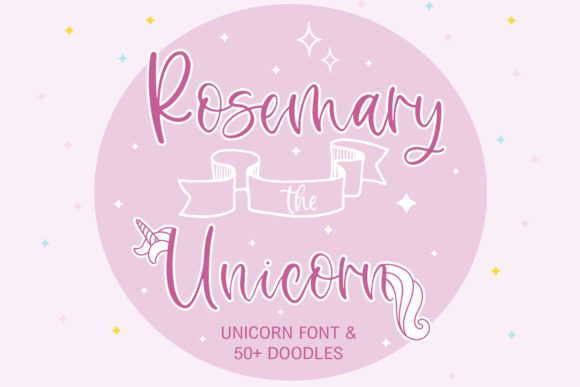
Unleash your creativity and embrace the charm of Rosemary the Unicorn, a captivating script font that exudes a touch of whimsy and elegance. Immerse yourself in the world of calligraphy with this meticulously crafted masterpiece, designed by the talented freelingdesignhouse.
Rosemary the Unicorn is not just a font; it's an experience. Its delicate strokes and playful curves dance across the page, creating a captivating visual symphony. Each letter is a work of art, imbued with a timeless charm that evokes a sense of nostalgia and enchantment.
Picture your wedding invitations adorned with the graceful curves of Rosemary the Unicorn, transforming your special day into a fairytale. Envision thank-you cards that express your gratitude with a touch of whimsy, leaving a lasting impression on the recipient's heart.
Let your creativity soar as you craft heartfelt quotes and greeting cards, each one a unique expression of your emotions. Your words will come alive, imbued with a new layer of depth and personality.
Elevate your business cards and logos with the sophistication of Rosemary the Unicorn, making a statement that speaks volumes about your brand's identity. Its timeless appeal will leave a lasting impression, ensuring that your business stands out from the crowd.
But Rosemary the Unicorn's versatility extends far beyond the traditional. Unleash your imagination and explore its potential in a myriad of design projects. From social media posts that captivate your audience to eye-catching posters that demand attention, Rosemary the Unicorn is your creative companion, transforming your vision into reality.
With Rosemary the Unicorn, you're not just downloading a font; you're embarking on a creative journey. Let its enchanting allure inspire you, and watch as your designs blossom with a newfound brilliance.